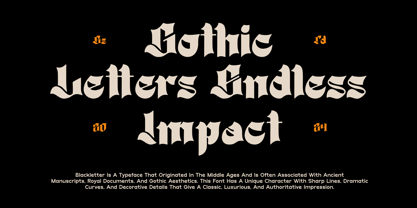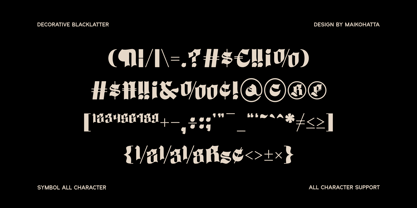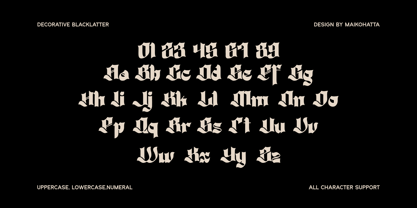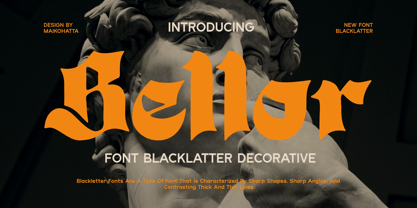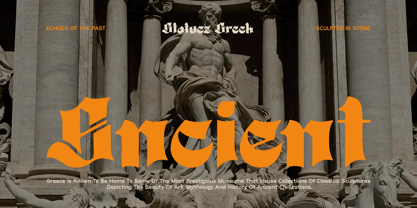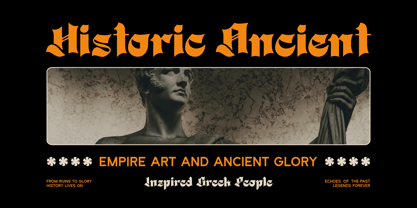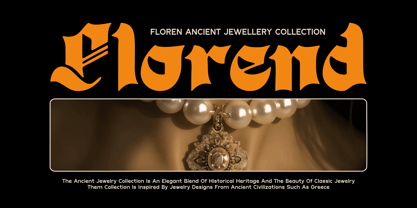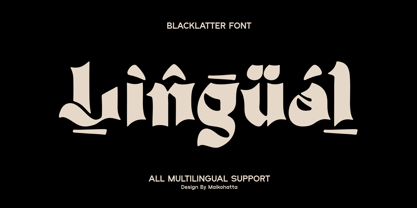
Bellor
by Maikohatta
The Bellor Font Family was designed by Gilang Ternadho and published by Maikohatta. Bellor contains 1 styles. More about this family
Introducing our new product**Bellor** Blacklatter Decorative Font
Bellor is a type of lettering with a distinctive and strong appearance, inspired by medieval writing styles. Its main features include upright and bold letterforms with sharp vertical lines, creating a rigid and geometric look. This font exudes an elegant, mysterious, and powerful charm, making it suitable for adding a historical touch to modern designs such as logos, posters, or book covers.
Designers: Gilang Ternadho
Foundry: Maikohatta